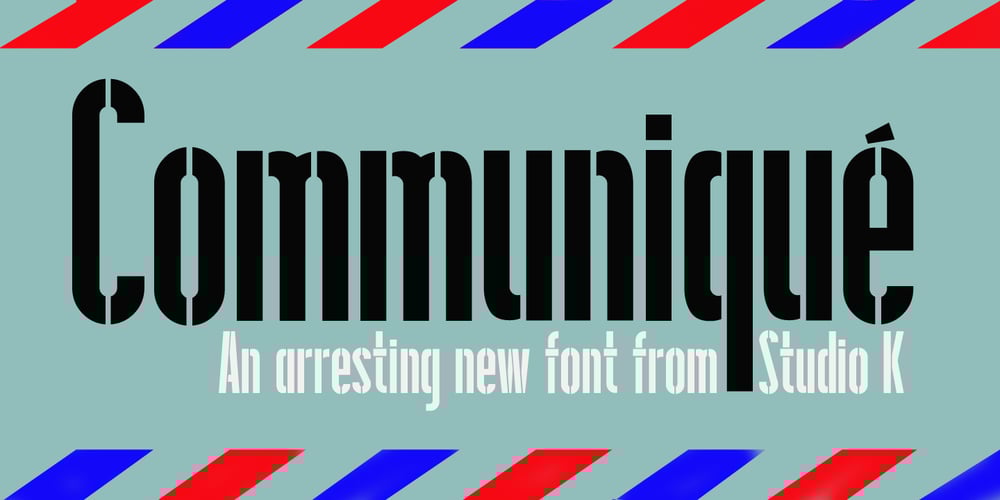
Communiqué
Communiqué font
Communiqué Font Family was designed by Keith Tricker and published by Studio K. Communiqué contains 2 styles and family package options. Communiqué is a variation on my Export Drive font family. It is a bold condensed stencil font of the kind traditionally used to mark tea chests, packing cases etc. Nowadays its applications are universal, although it is particularly well suited to branding or publishing projects which strive for a sense of freshness, urgency and immediacy, or a rugged, rough-and-ready feel.